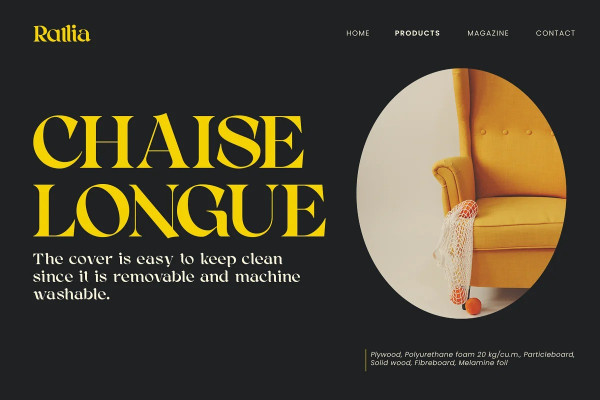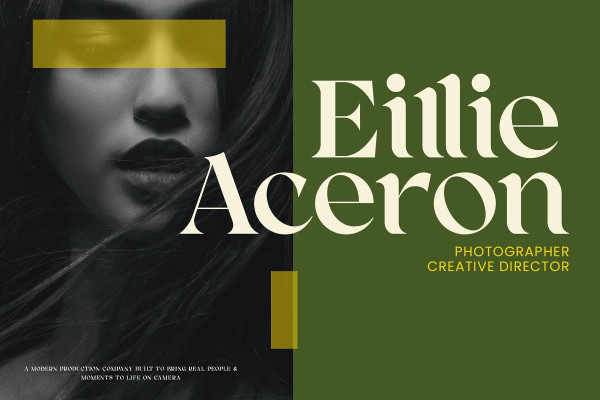
Rallia Font
Rallia Font – A modern classic serif style font with unique curves that combine straight, rounded, and sharp lines. Inspired by elegant and temporary characters. This font is suitable for use in many forms of design and pairs beautifully with sans-serif or light script fonts.